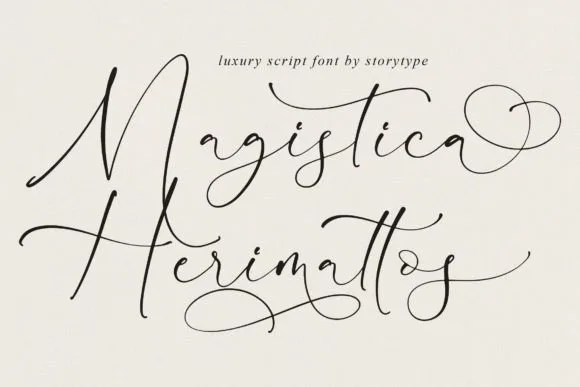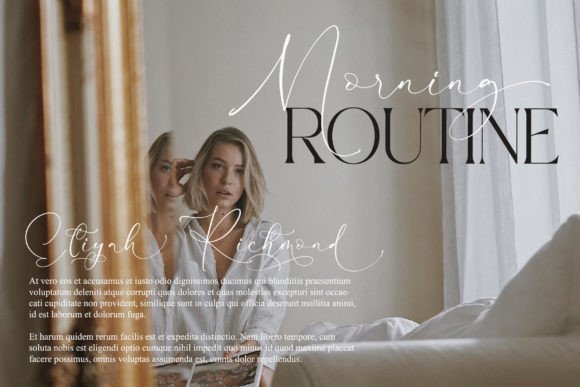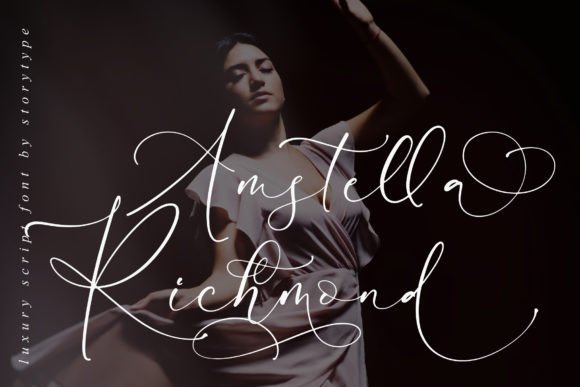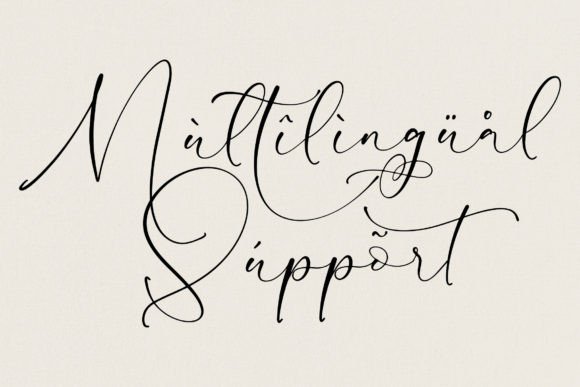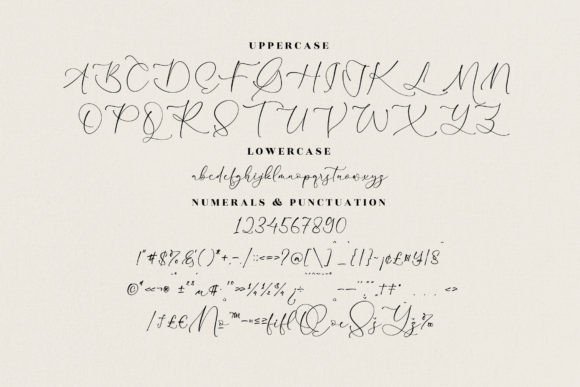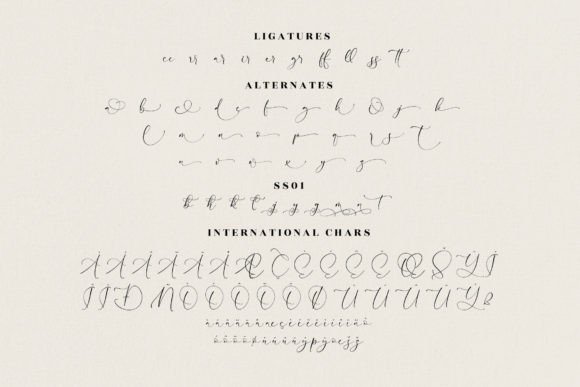
Magistica Herimattos Font
“Magistica Herimattos” is a luxurious script font that exudes a unique style and modern aesthetic. This typeface is crafted for elegance and luxury, making it an ideal choice for a range of design applications. From sophisticated logos to book or movie titles, fashion brands, magazines, clothes, lettering, and quotes, “Magistica Herimattos” brings a touch of opulence to various creative projects.
The luxurious quality of “Magistica Herimattos” makes it particularly well-suited for projects where an elegant and upscale look is desired. The script font is designed to convey a sense of refinement and modernity, making it a valuable asset for branding and design that aims for a high-end visual appeal.
Imagine “Magistica Herimattos” gracing the cover of a luxury magazine, where its script adds a touch of sophistication. Picture it in a fashion brand’s logo, conveying a sense of opulence and style. Envision this font on a book cover, creating a modern and elegant title design.
The versatility of “Magistica Herimattos” extends to its ability to elevate various design elements, from clothing labels to impactful quotes. Its modern look ensures that it aligns well with contemporary design sensibilities, making it relevant across different creative projects.
Whether you’re a graphic designer working on luxurious branding or an individual seeking a font that exudes elegance, “Magistica Herimattos” invites you to explore its possibilities. Let this font be the key element that brings a luxurious and modern touch to your designs, making them truly standout and sophisticated.